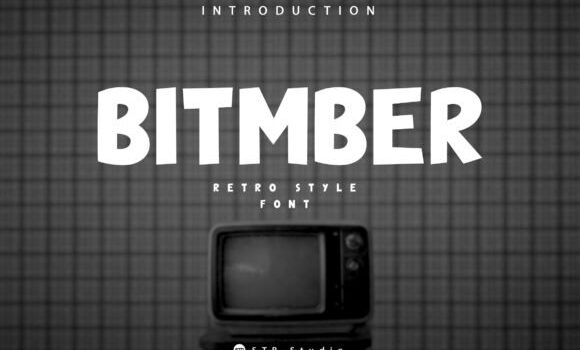
bitmber
Bitmber Font – Free Download Introduction to Bitmber Font Bitmber is a cool and bold display font. 📸 Preview Gallery 3 images 📌 Product Name Bitmber Font 👤 Author NOX Labs 📂 Category Explore ⬇️ Download Bitmber Font FREE Free